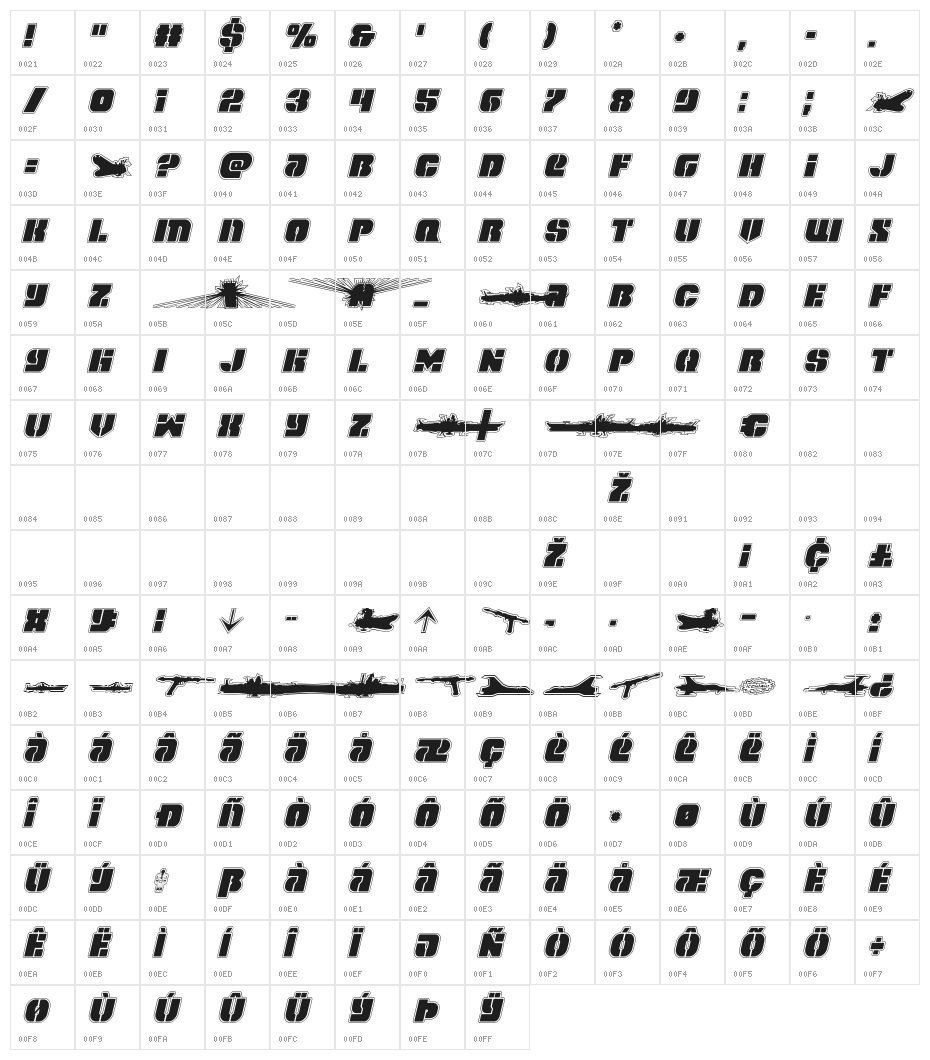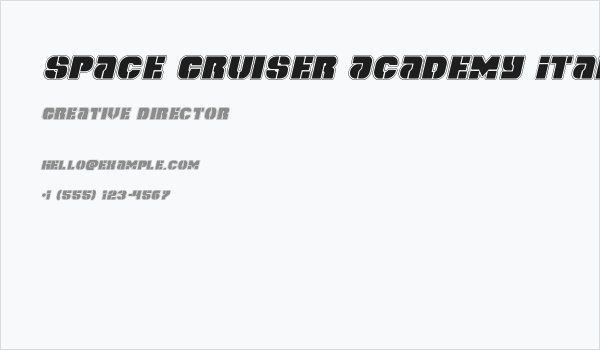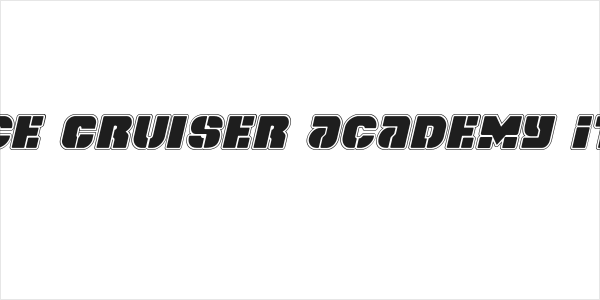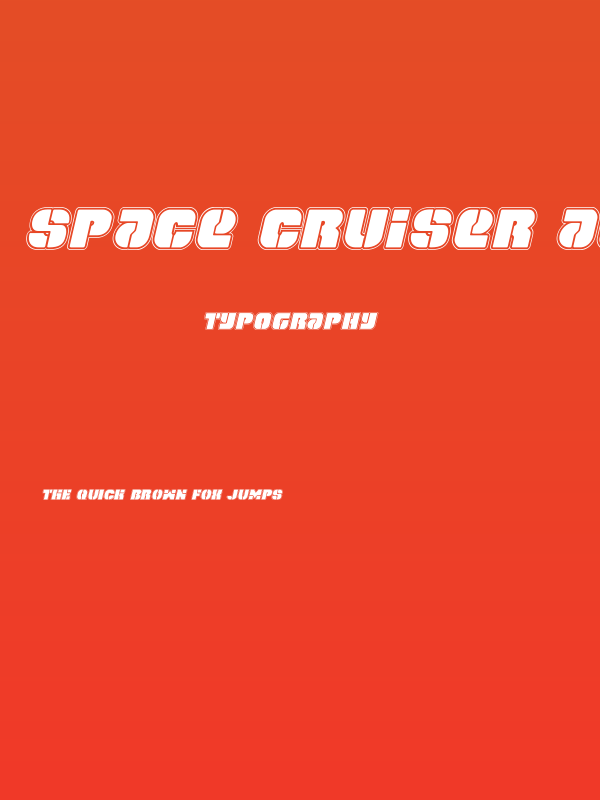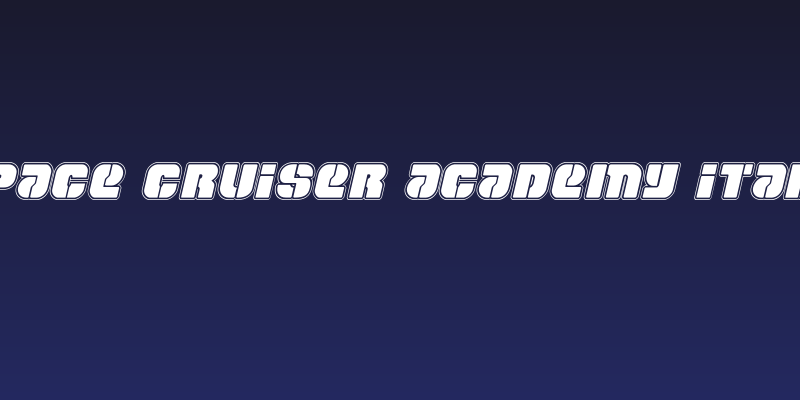
Space Cruiser Academy Italic Font
Space Cruiser Academy Italic Description
This font features a bold and futuristic design with a distinct italic slant, giving it a dynamic and forward-moving appearance. The characters are outlined with a thick border, creating a strong visual impact. The style is reminiscent of retro-futuristic aesthetics, often seen in sci-fi themes. The uppercase and lowercase letters maintain a consistent style, with angular cuts and geometric shapes. The numbers and special characters follow the same bold and outlined design, ensuring uniformity across all elements. This font is ideal for projects that require a standout, space-themed look.
| Overall Style | Futuristic, Retro |
| Proposed Projects | Perfect for sci-fi movie posters, video game titles, futuristic branding, and space-themed event flyers. |